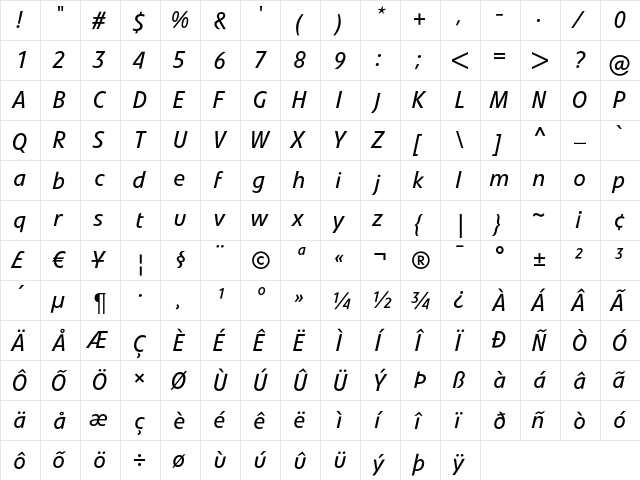
LinotypeVeto Italic
Design Context for LinotypeVeto Typeface
LinotypeVeto takes a measured approach to typography — its balanced proportions and neutral character make it a reliable workhorse for both digital and print work. The dynamic lean of this cut emphasises speed and emphasis in any layout.
Pro Tip: Use LinotypeVeto for emphasis, pull quotes, and subheadings where its slanted energy can add rhythm to the layout.